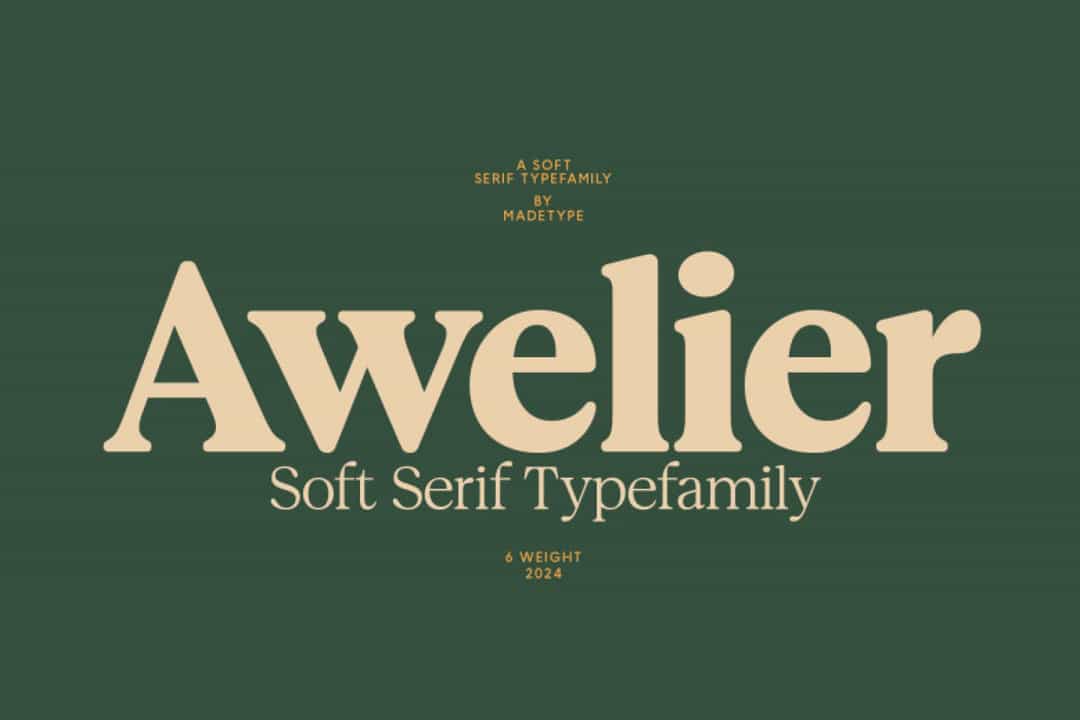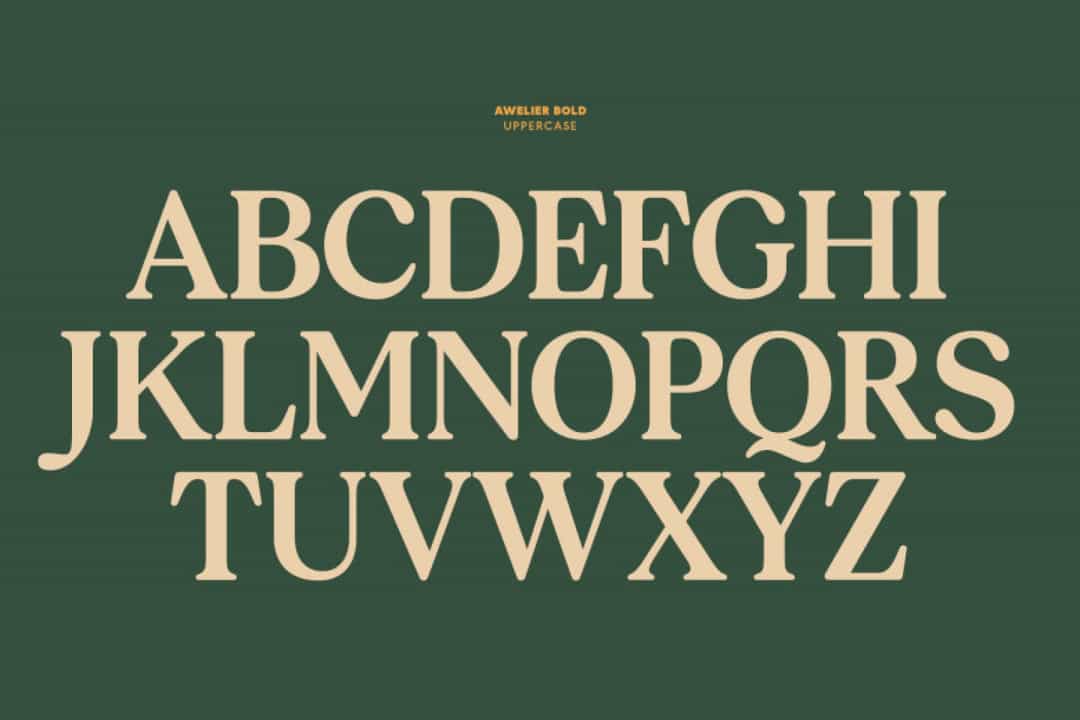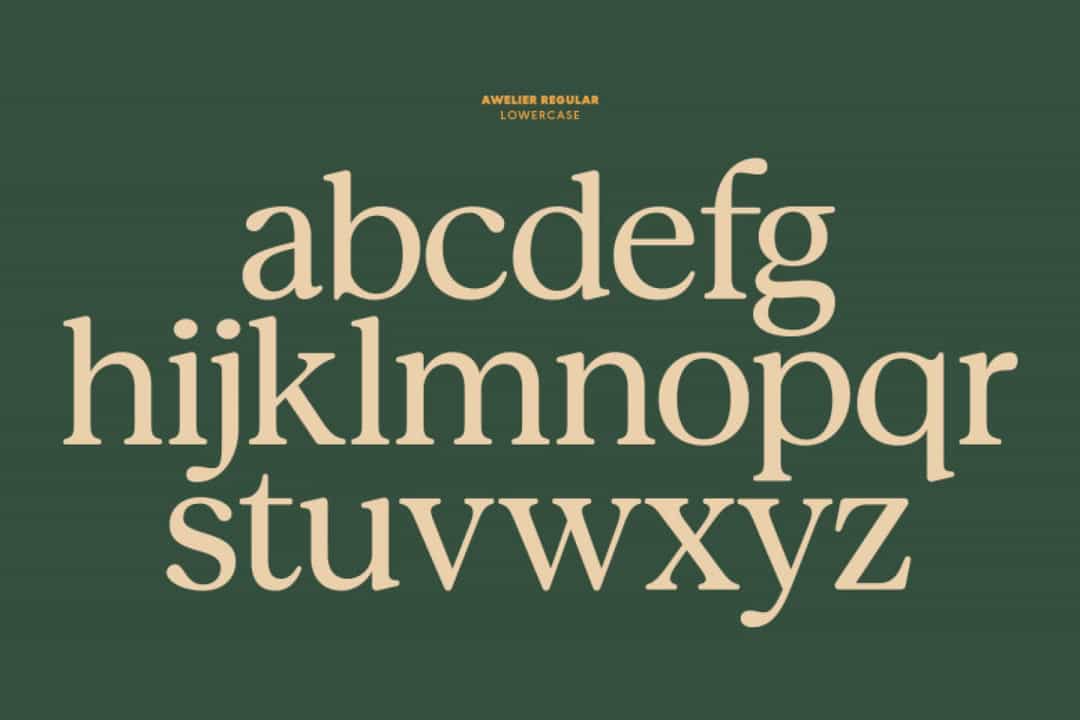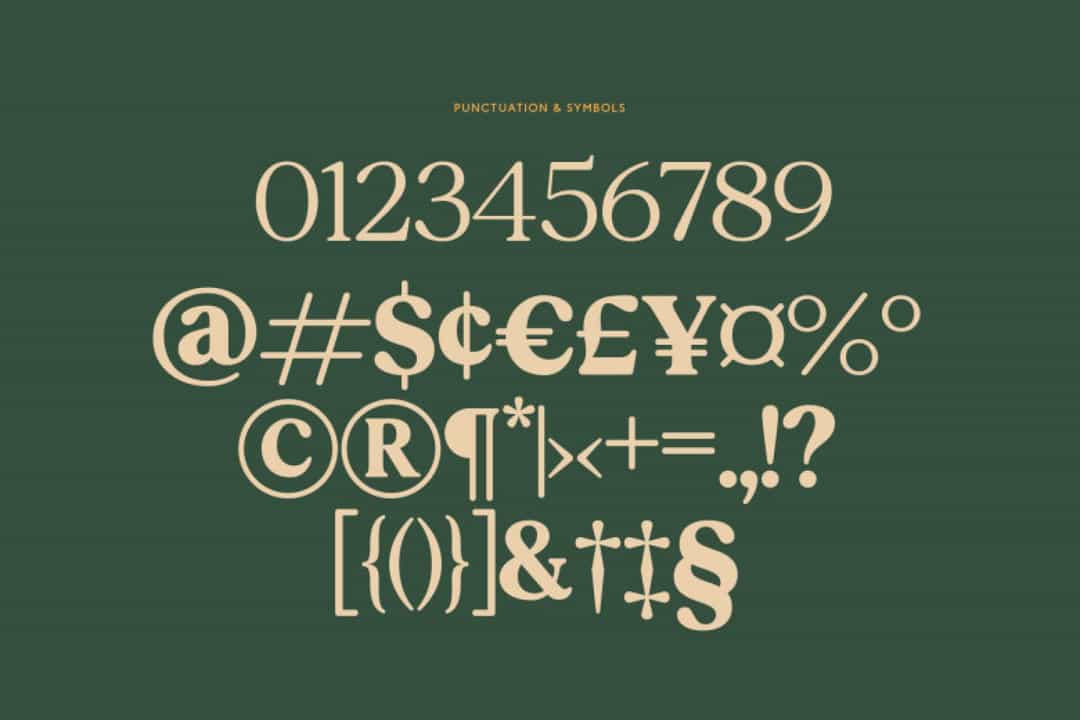
MADE Awelier is an elegant serif-like typeface. The files include Awelier Light.otf through Awelier Black.otf in order to meet all your text needs: uppercase and lowercase punctuation, letters, numbers as well as multilingual support (with 6 OTF files in zip folder).